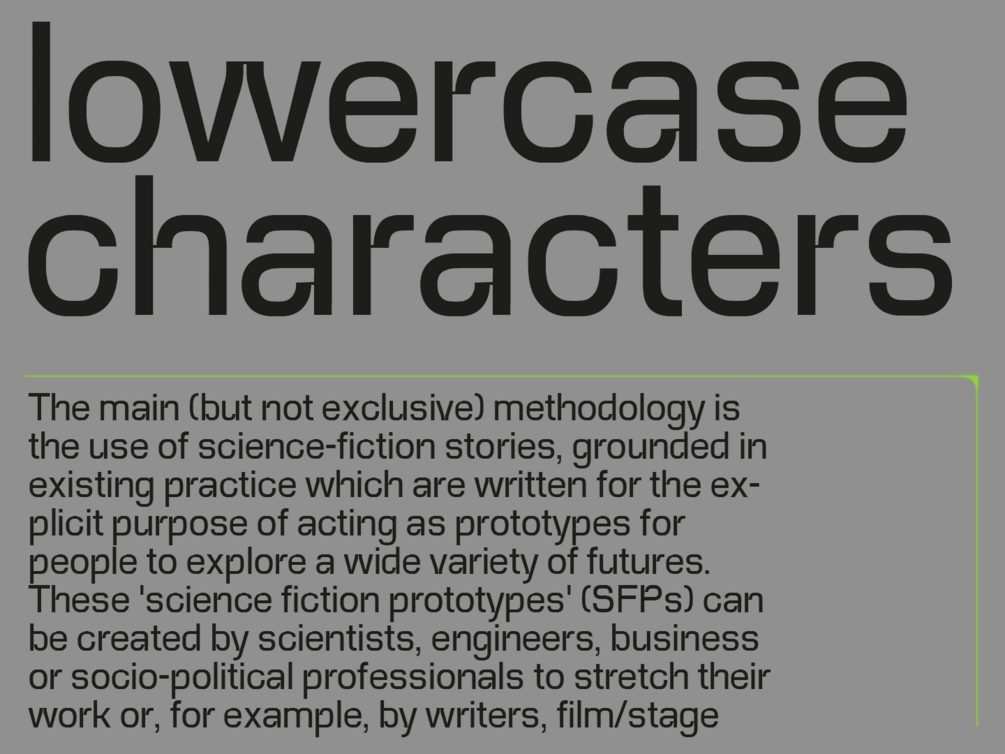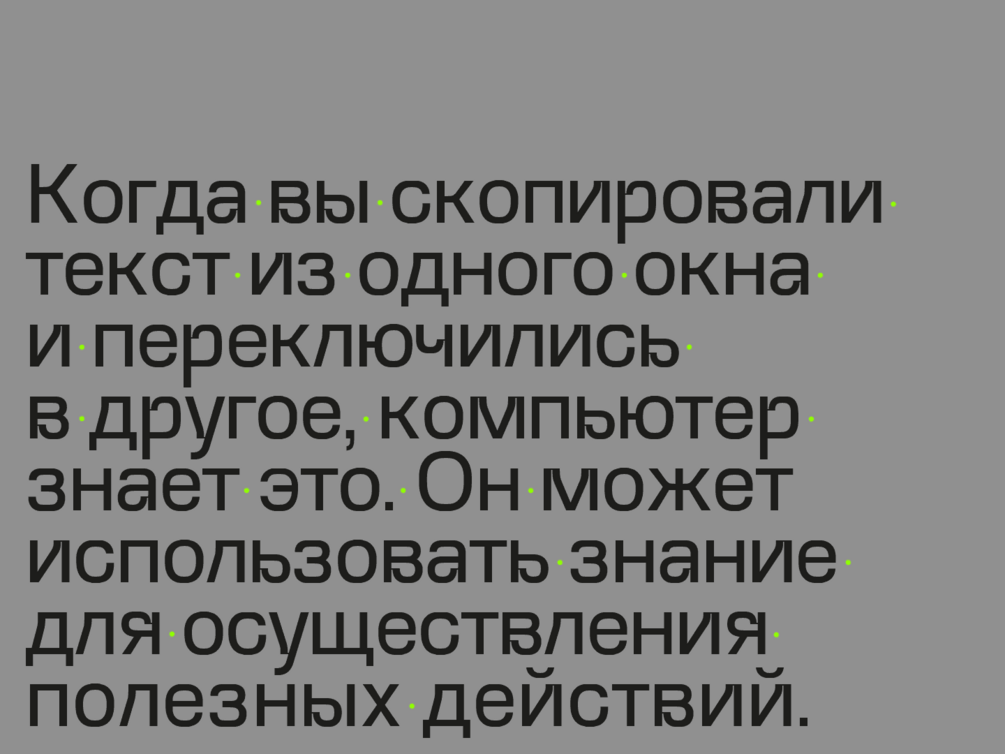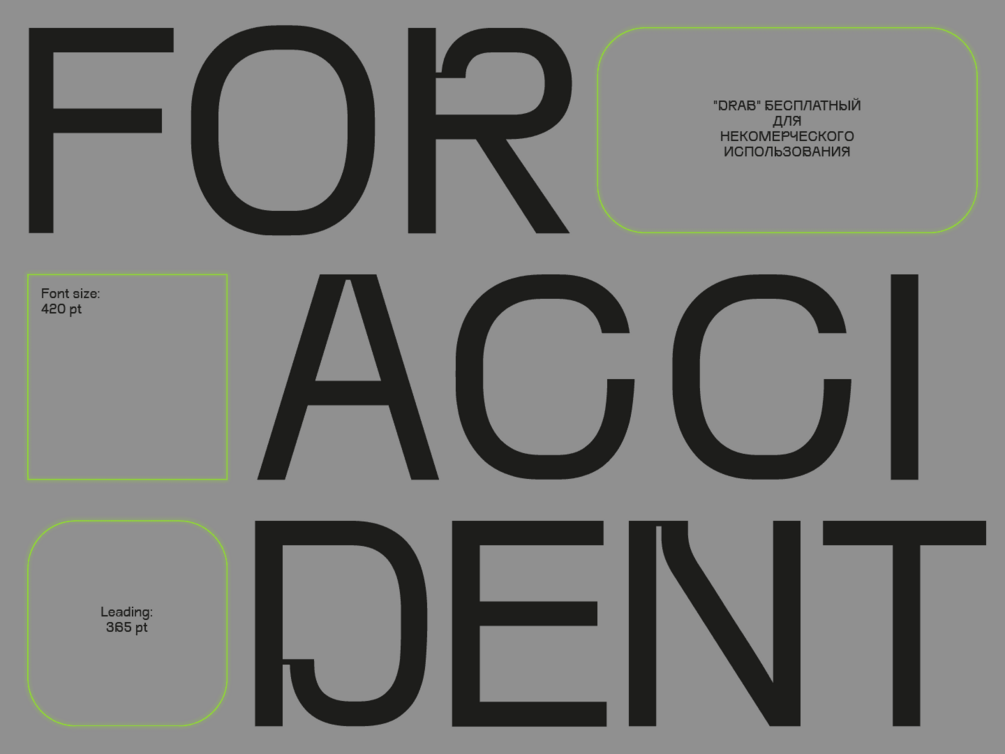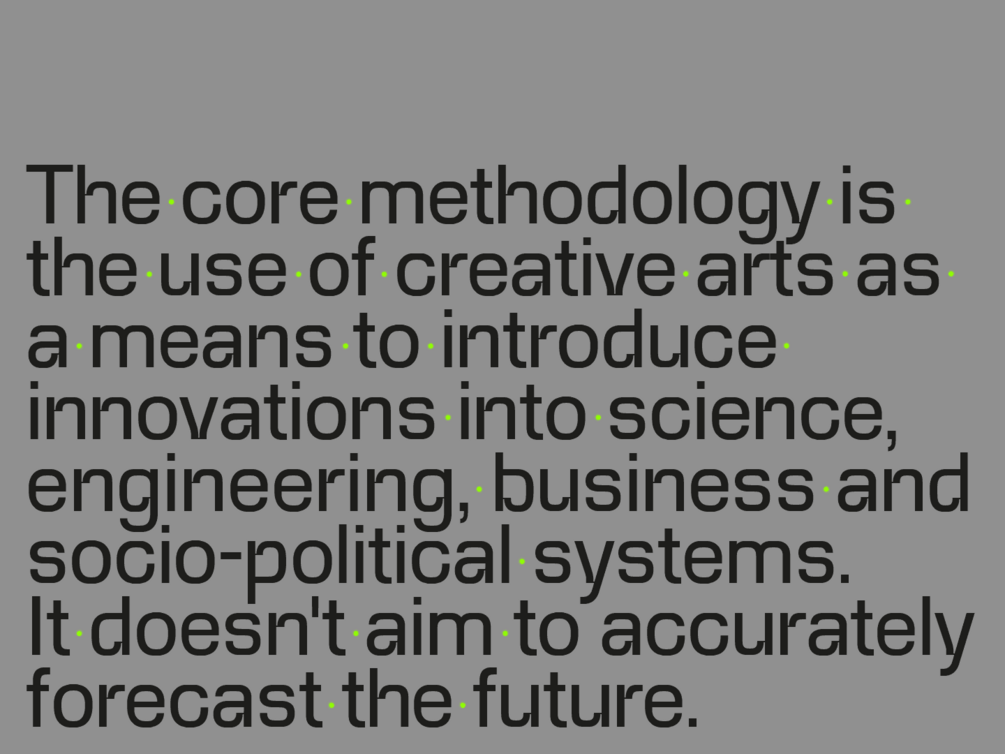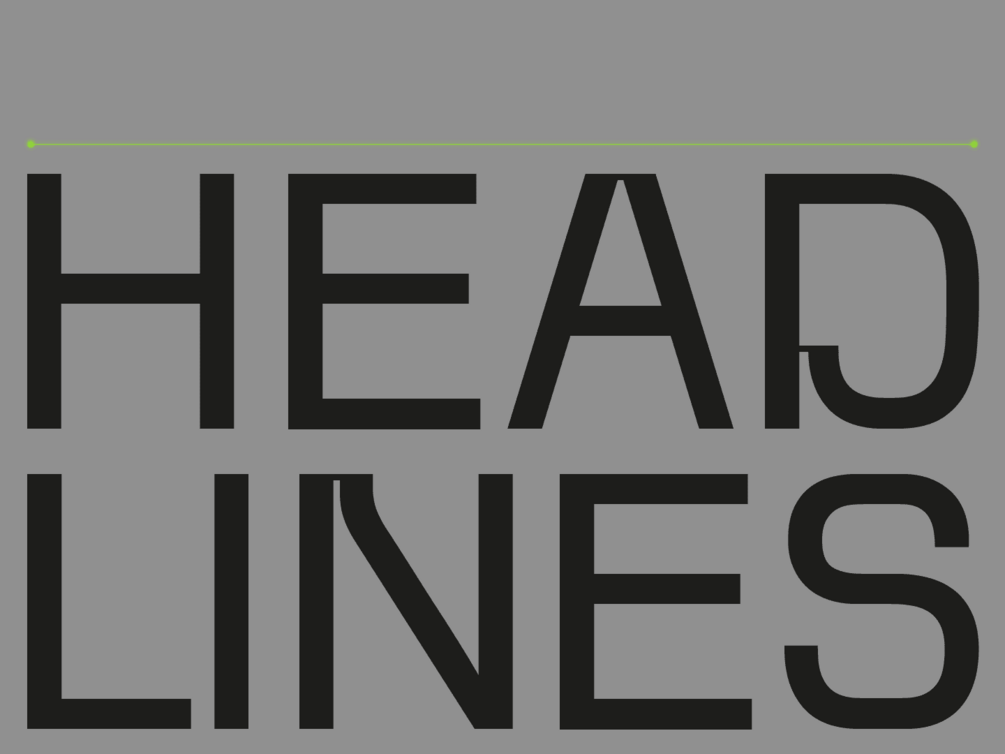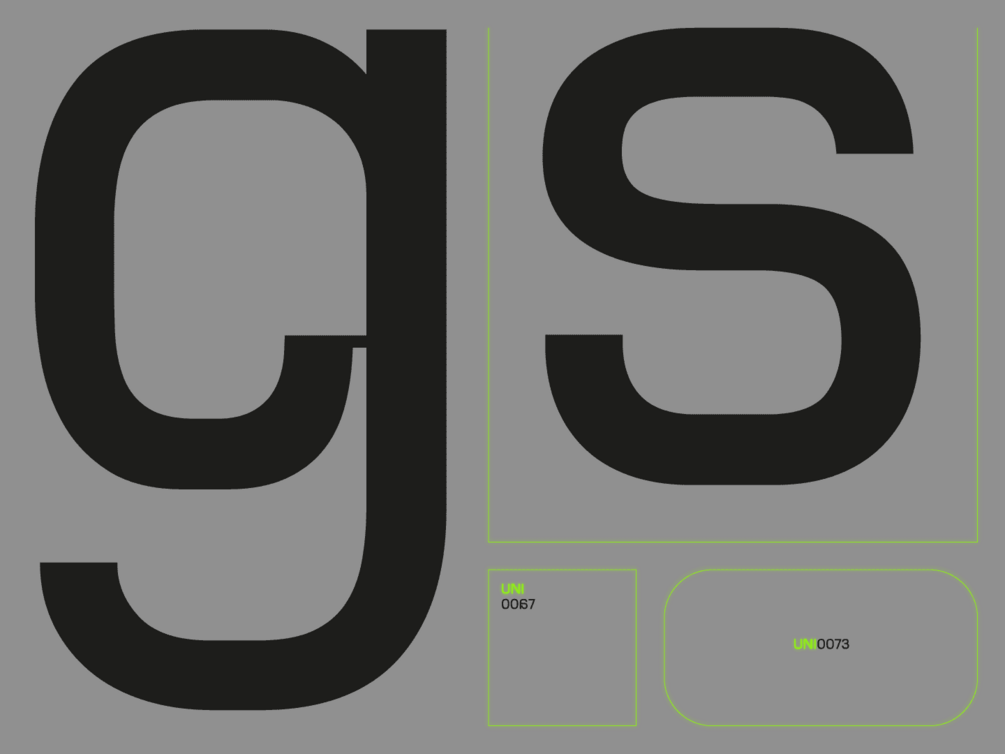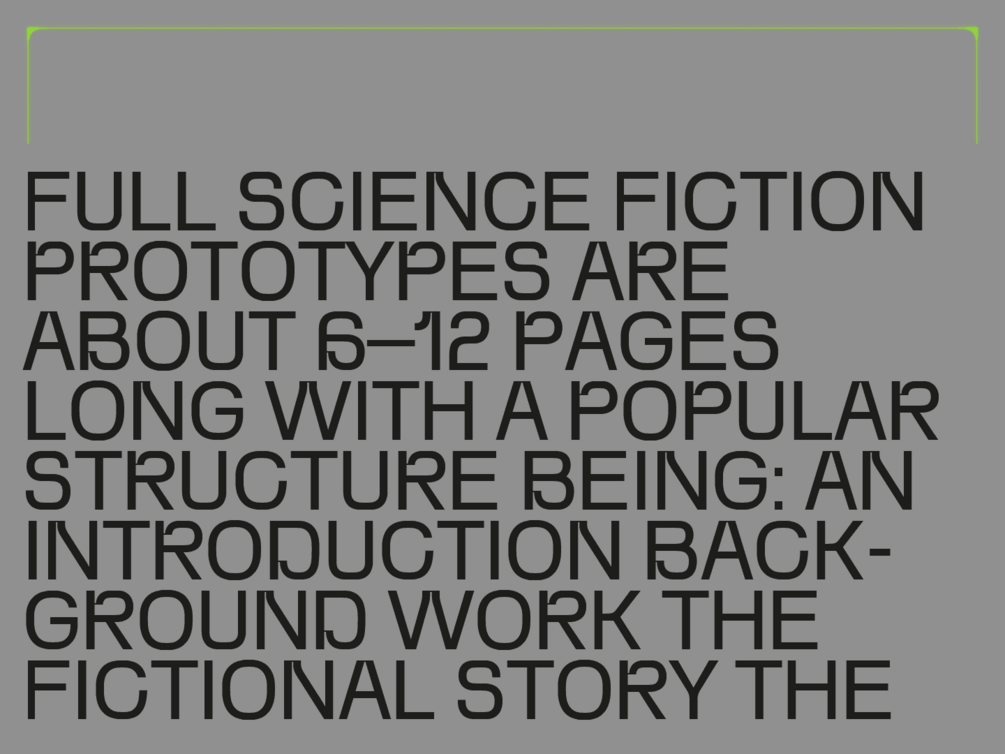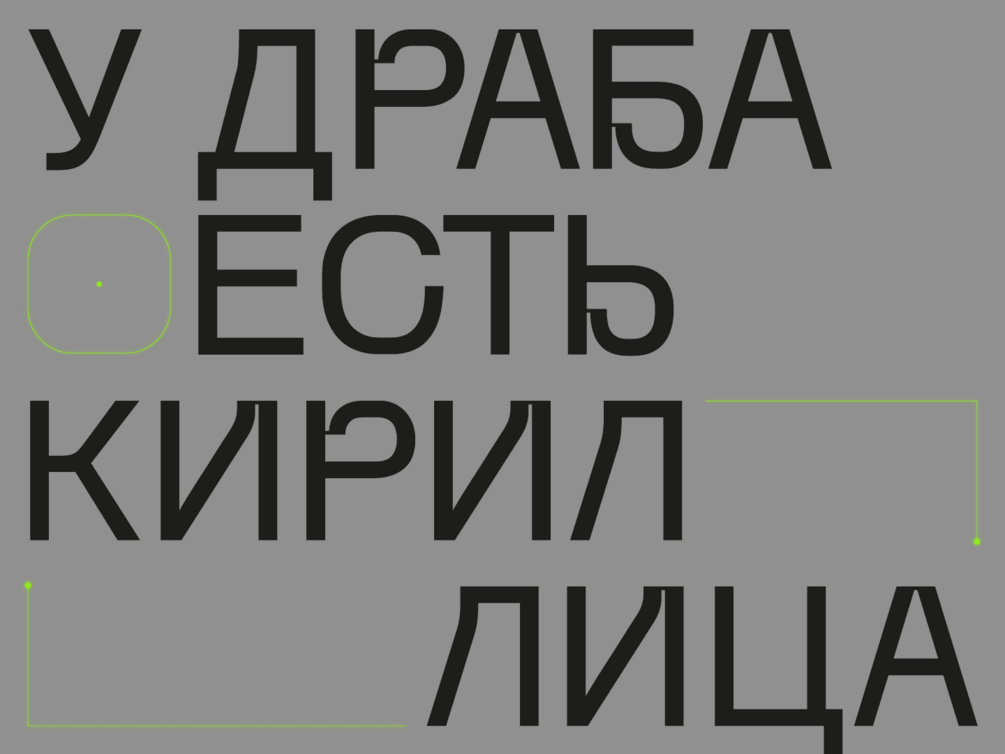
"Drab" font
Drab was created as a classic grotesque, but turned into something more fun. The half-ovals bent into a half-spiral and began to connect strangely with the main stroke. And the sloping strokes now do not grow into each other tightly, but are easily connected by a thin crossbar. All ovals and semi-ovals are not geometrically round, but something between a circle and a rounded rectangle.
Supports
Basic and Extended Latin, Cyrillic, Diacritics, Numbers, Punctuation, Currencies, Uppercase & lowercase.